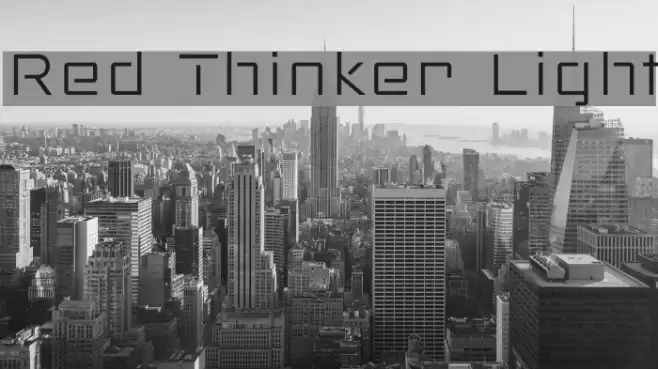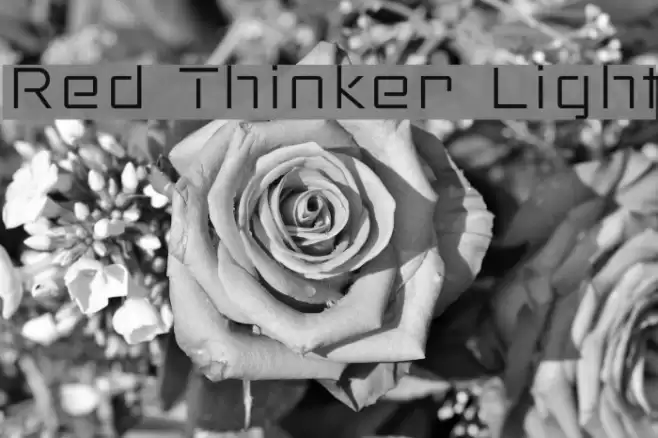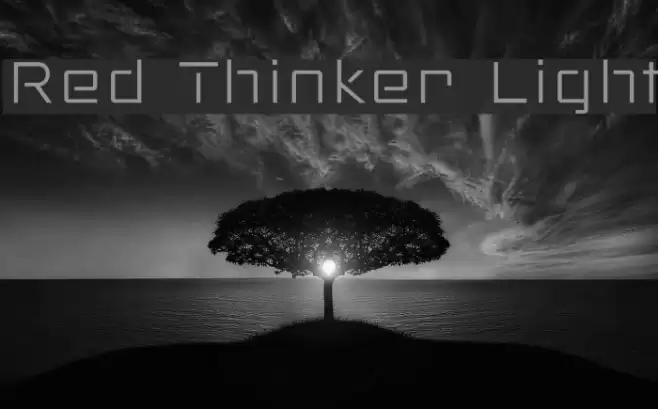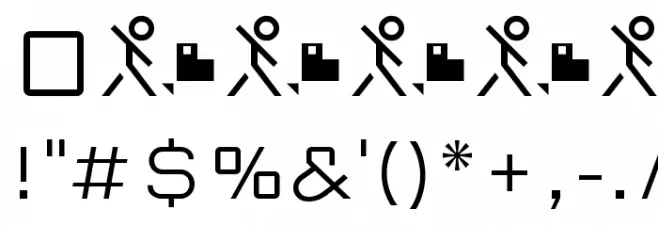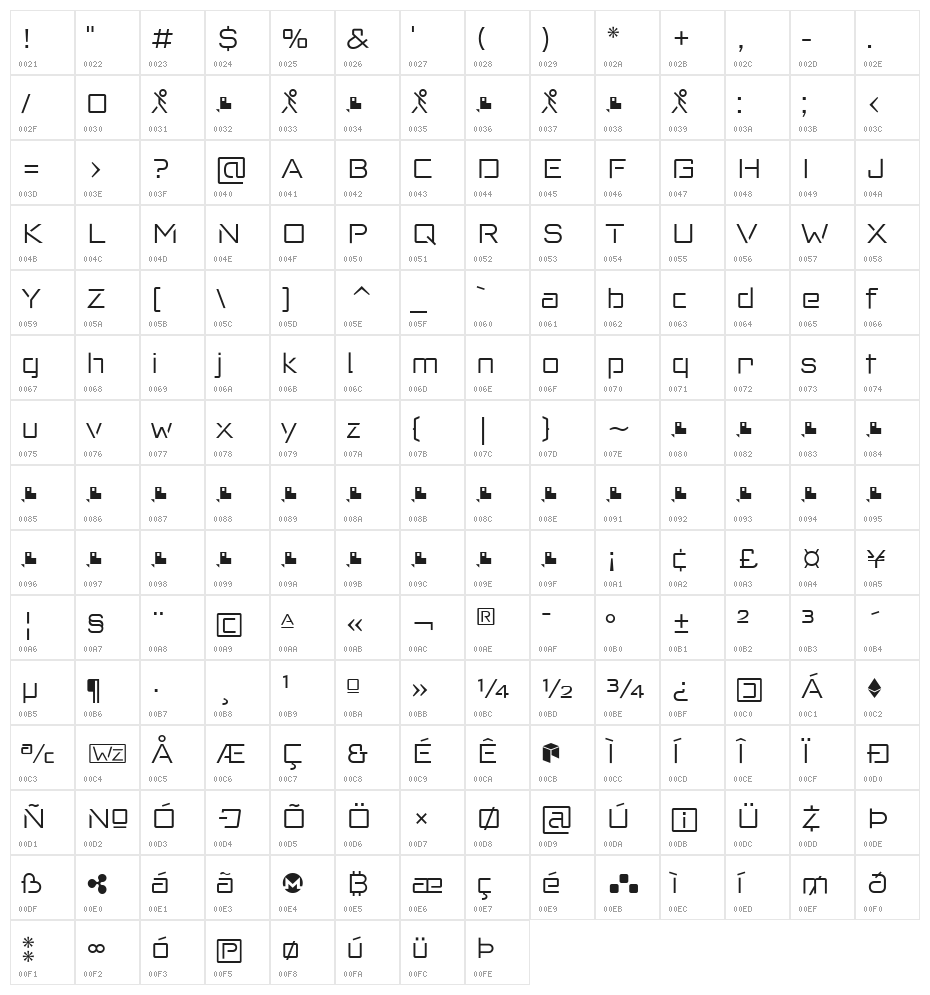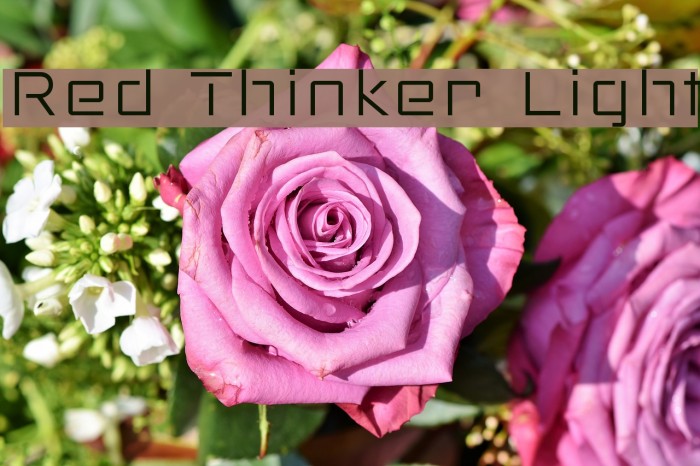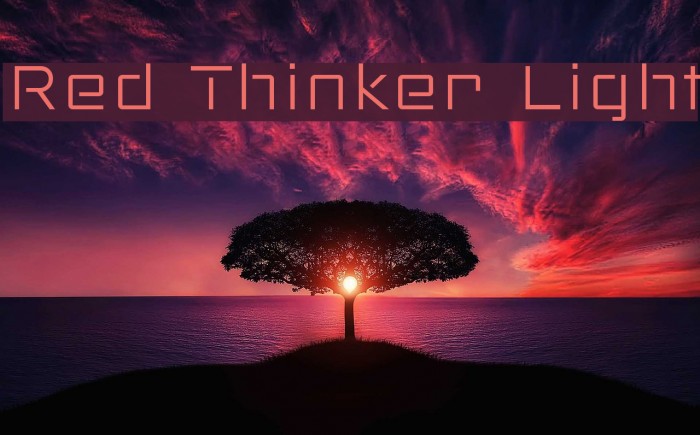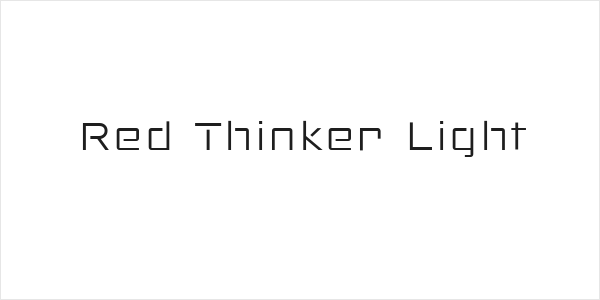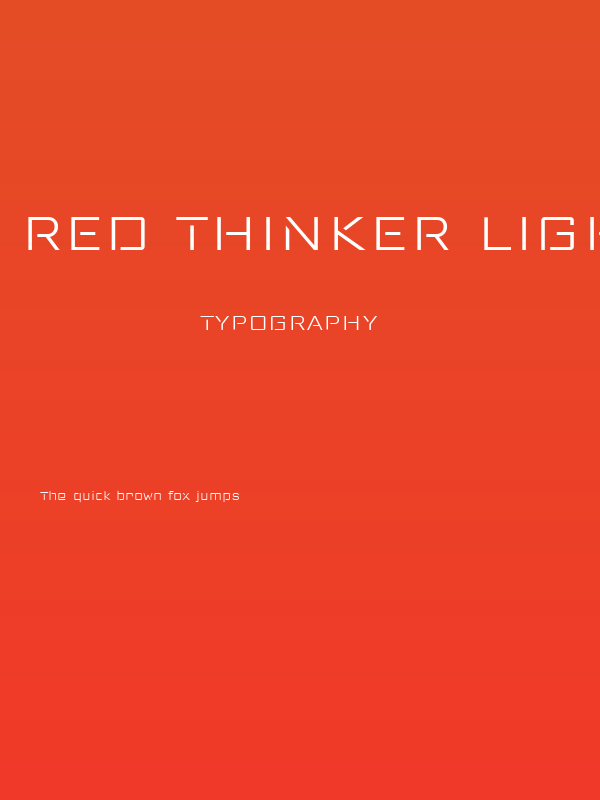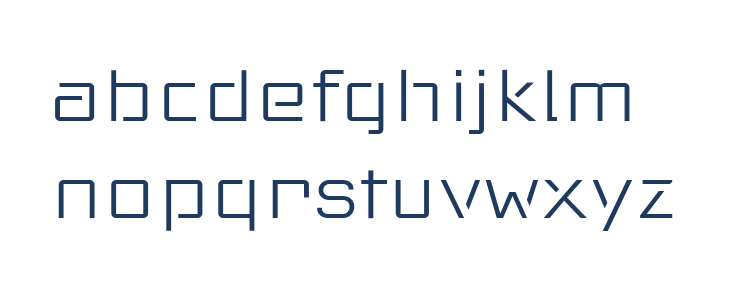
Red Thinker Light Font
Red Thinker Light Description
This font features a modern, geometric design with a clean and minimalist aesthetic. The characters are constructed with straight lines and sharp angles, giving it a futuristic and technical appearance. The uppercase and lowercase letters maintain a consistent height, contributing to a uniform look across text. The numerals and special characters are designed to match the overall style, ensuring cohesion throughout. The font's simplicity and clarity make it suitable for digital interfaces and contemporary design projects.
A modern, geometric font with a clean, minimalist design from Uncategorized fonts.
- Proposed Projects: Ideal for tech branding, digital interfaces, and modern advertising campaigns.
- Use Case: Headlines, Logos, Digital Interfaces